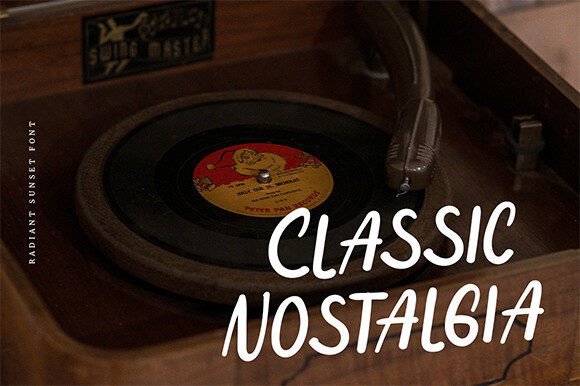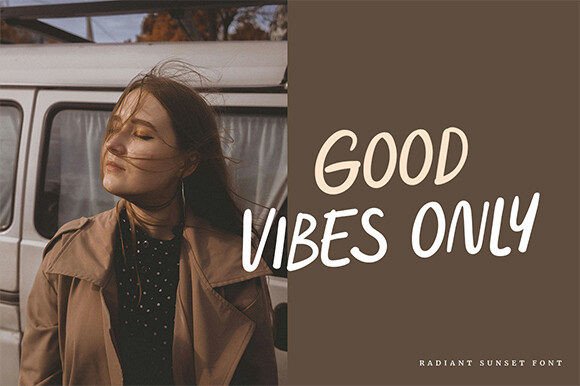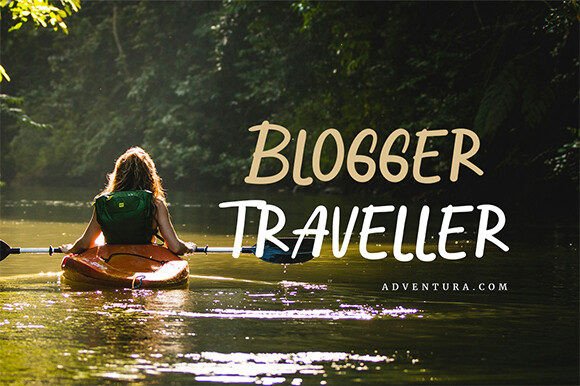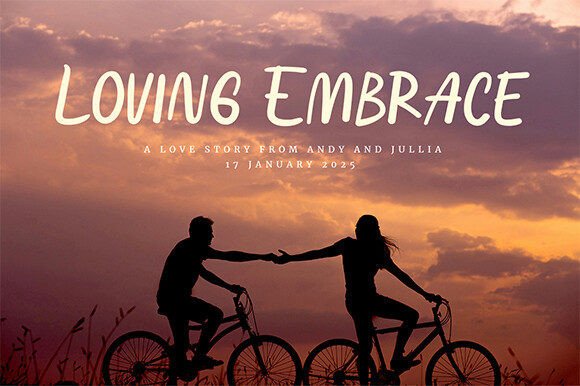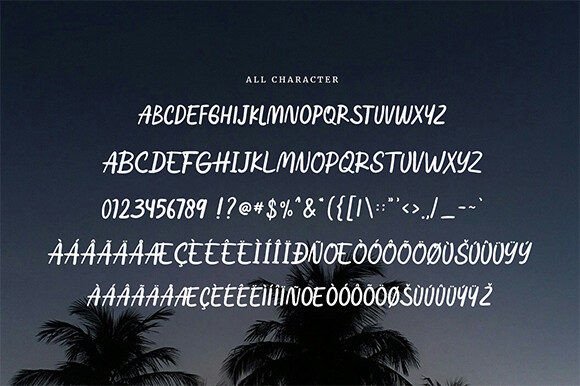
Introduction to Radiant Sunset Font Font
Fonts play a crucial role in design, and the Radiant Sunset Font font is a typeface that brings both character and versatility to any project. Whether you’re working on a branding project, a website, or a print design, the Radiant Sunset Font font offers a unique style that can elevate your work.
Radiant Sunset is a beautifully crafted handwritten font that captures the essence of natural, flowing penmanship.
Each character is designed with meticulous attention to detail, evoking a sense of warmth and authenticity .
Key Features of Radiant Sunset Font Font
Why Choose Radiant Sunset Font Font?
The Radiant Sunset Font font is more than just a typeface – it’s a design tool that helps you communicate your message with style and clarity. Its unique character set and versatile design make it suitable for a wide range of applications, from elegant invitations to bold headlines.
With its carefully crafted letterforms and balanced proportions, the Radiant Sunset Font font ensures readability and visual appeal across all mediums.
What makes Radiant Sunset Font font special?
The Radiant Sunset Font font stands out with its unique design, exceptional readability, and versatility across various design applications.